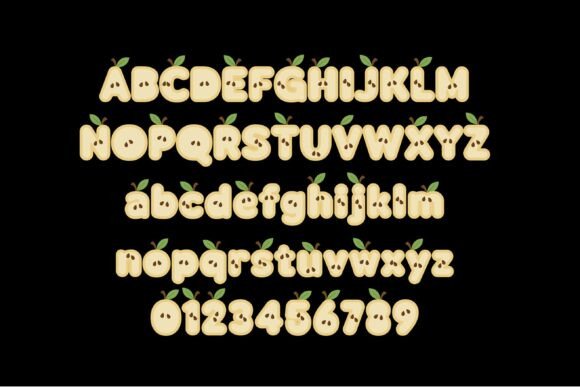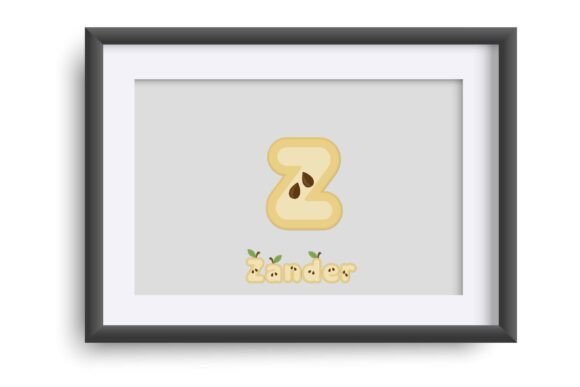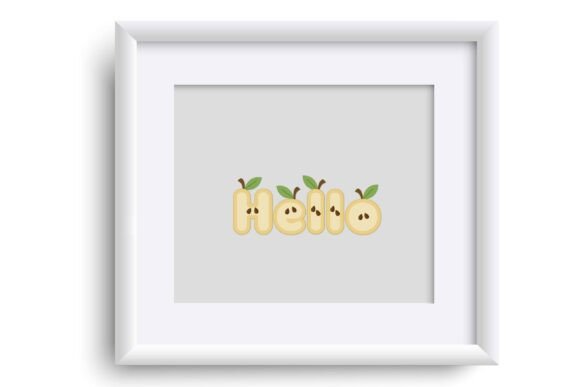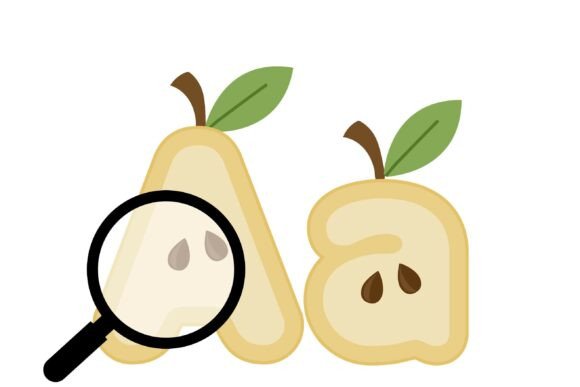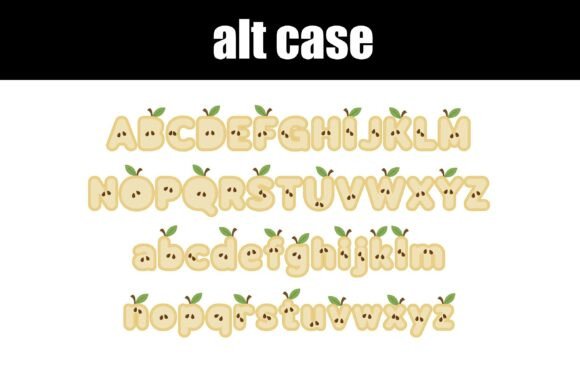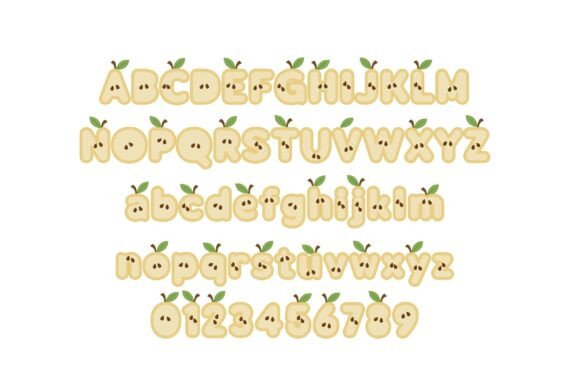
Introduction to Pear Font
Pear: A Whimsical Harvest SVG Font Fresh from the orchard, Pear is a full-color SVG font that celebrates the organic beauty of autumn’s favorite fruit.
This playful display typeface features chunky, rounded letterforms rendered in a soft, golden-cream palette, designed to mimic the cross-section of a ripe pear Each character is uniquely detailed with dark brown seed accents and topped with a vibrant green leaf and sturdy stem.